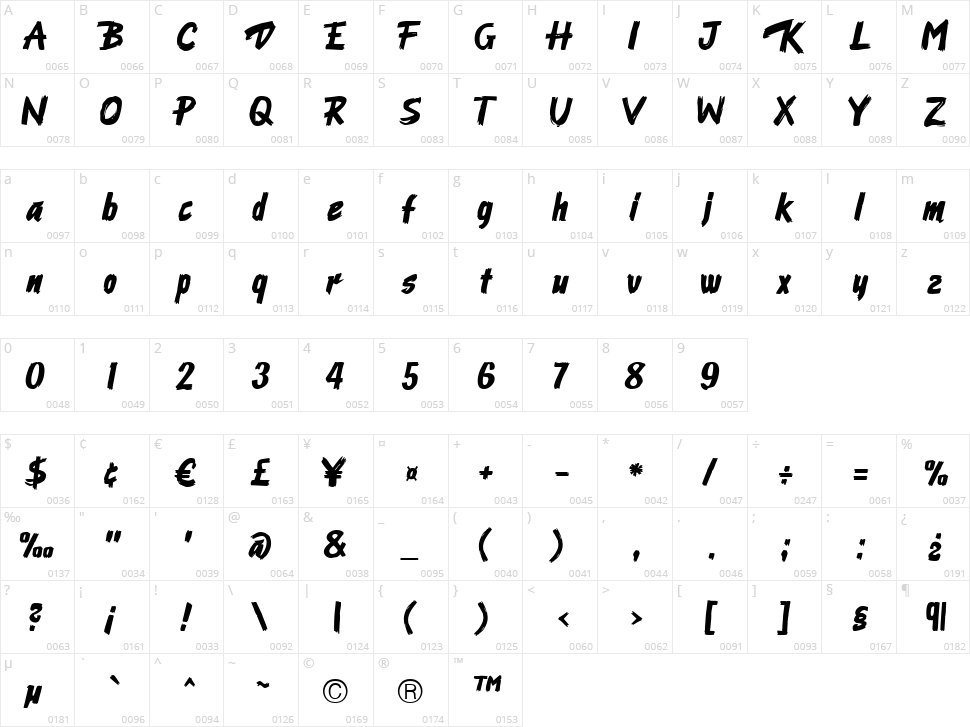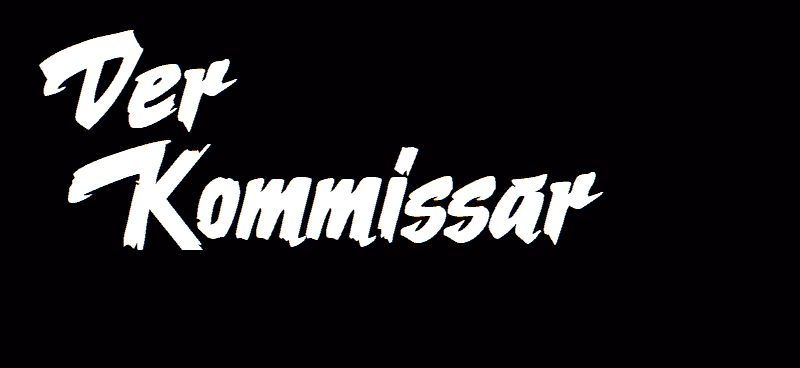
Ode an Erik AH
This typeface is built on the title graphics of German TV Police Series "Der Kommissar" of the 1960 and 70s. Missing characters were extrapolated.